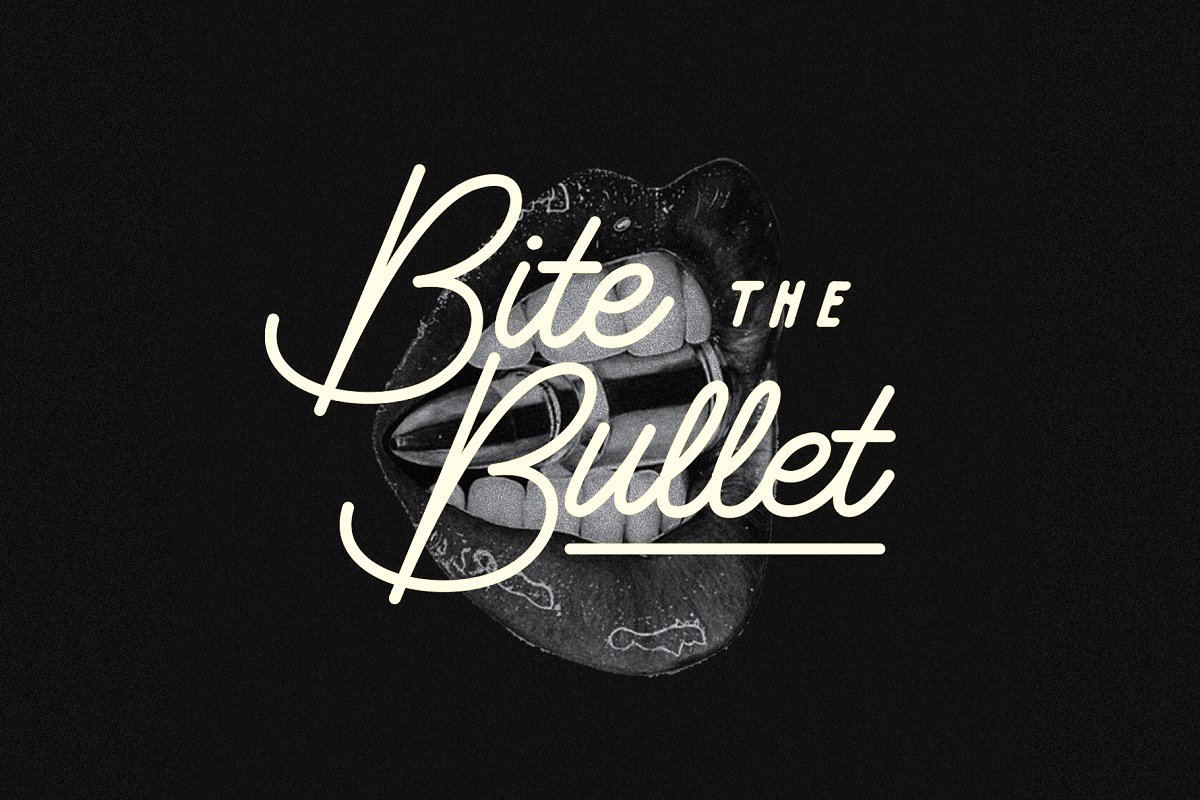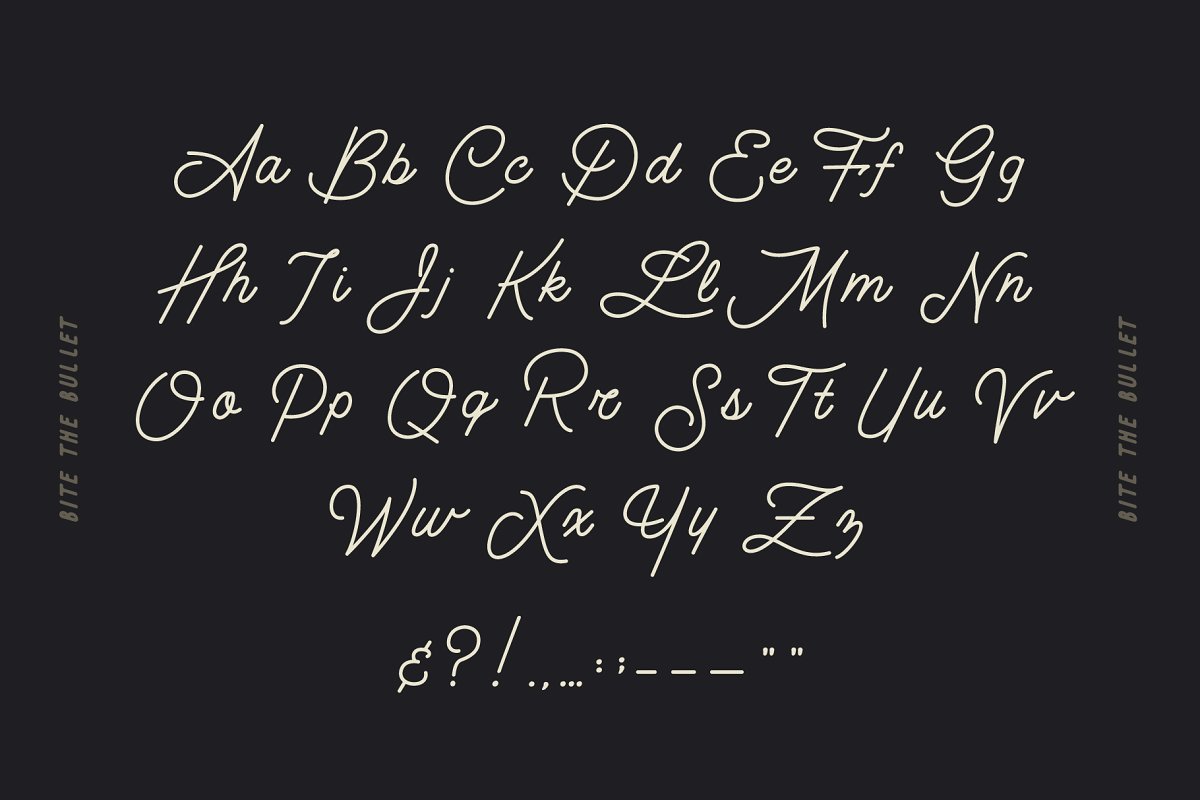
About the Bite the Bullet Typeface Font
Excited to bring you our first script type release: Bite the Bullet, It’s a monoline, handwritten cursive style display script with alt glyphs for a good time, Great for logotypes, quotes or just wanting to give certain words a little more emphasis, , otf file format